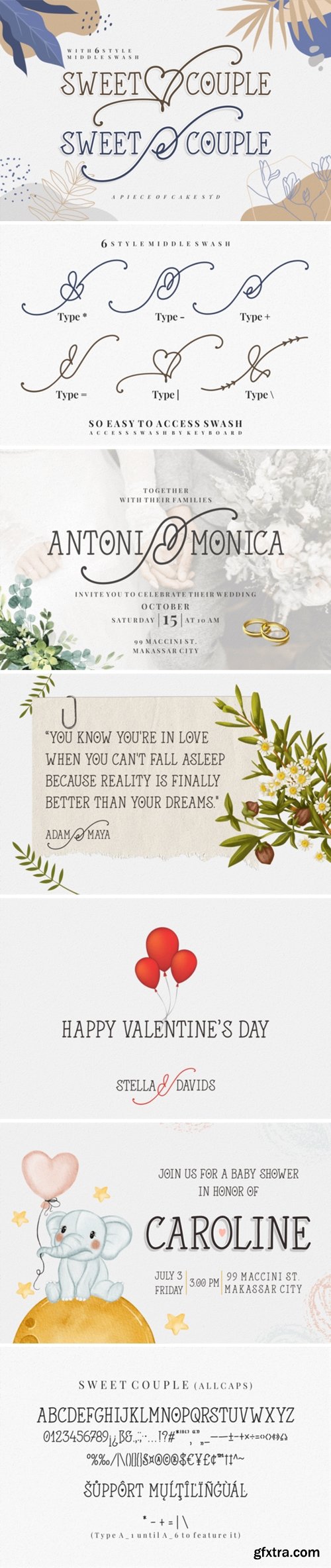
Sweet Couple Font
Sweet Couple is a simple, lovely, and cute display font, perfect for a wide spectrum of applications such as wedding themes, valentine, greeting cards, headlines, and many more! Add it confidently to your projects, and you will love the results.